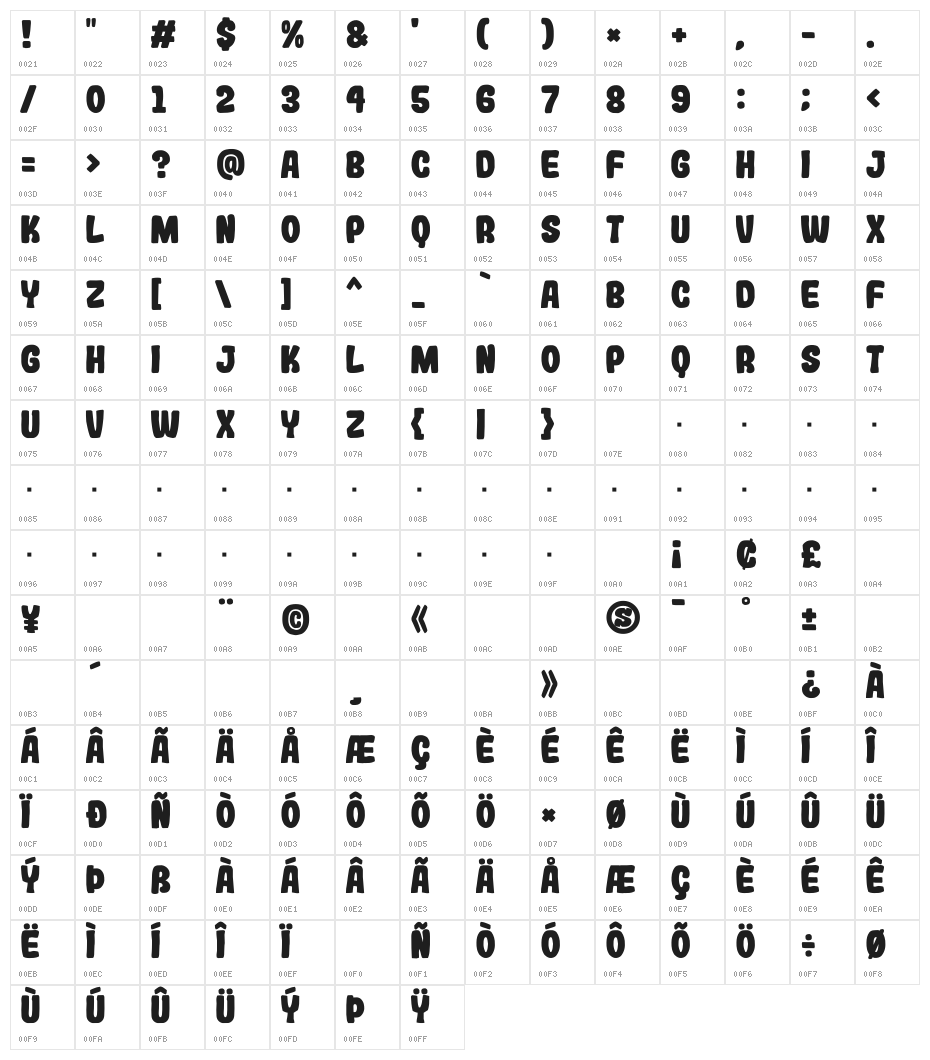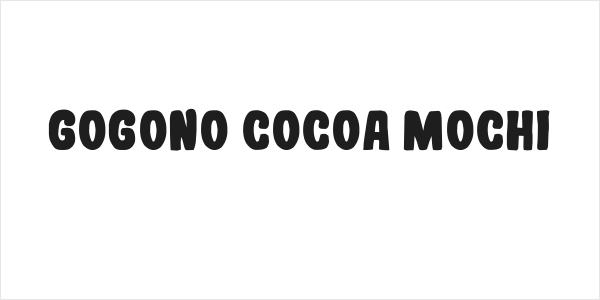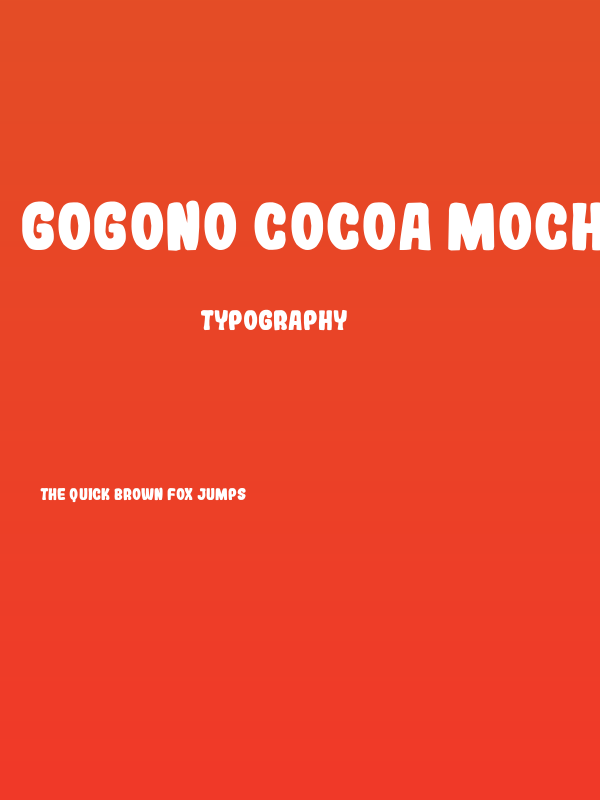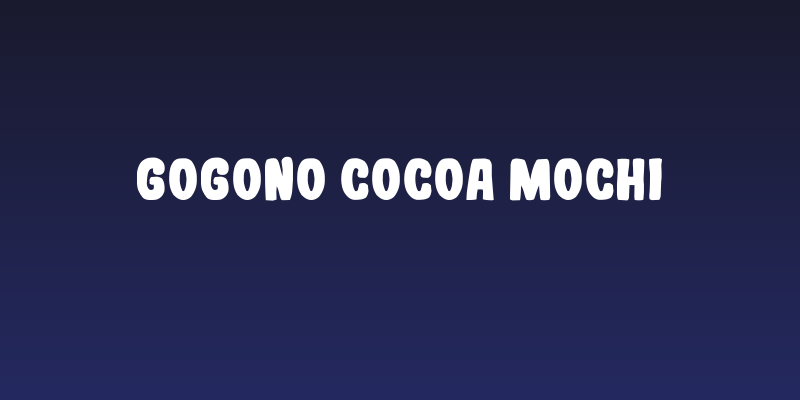
Gogono Cocoa Mochi Font
Gogono Cocoa Mochi Description
This font features a bold and playful design with rounded edges and a thick, uniform stroke. The characters are wide and have a slightly bubbly appearance, giving them a friendly and approachable feel. The uppercase and lowercase letters maintain a consistent style, with the lowercase letters being slightly smaller but equally bold. Numbers and special characters follow the same design principles, ensuring a cohesive look across all text. The font's overall appearance is reminiscent of retro or vintage styles, making it suitable for projects that require a fun and nostalgic touch.
| Proposed Projects | Ideal for children's books, playful branding, retro-themed posters, and casual invitations. |